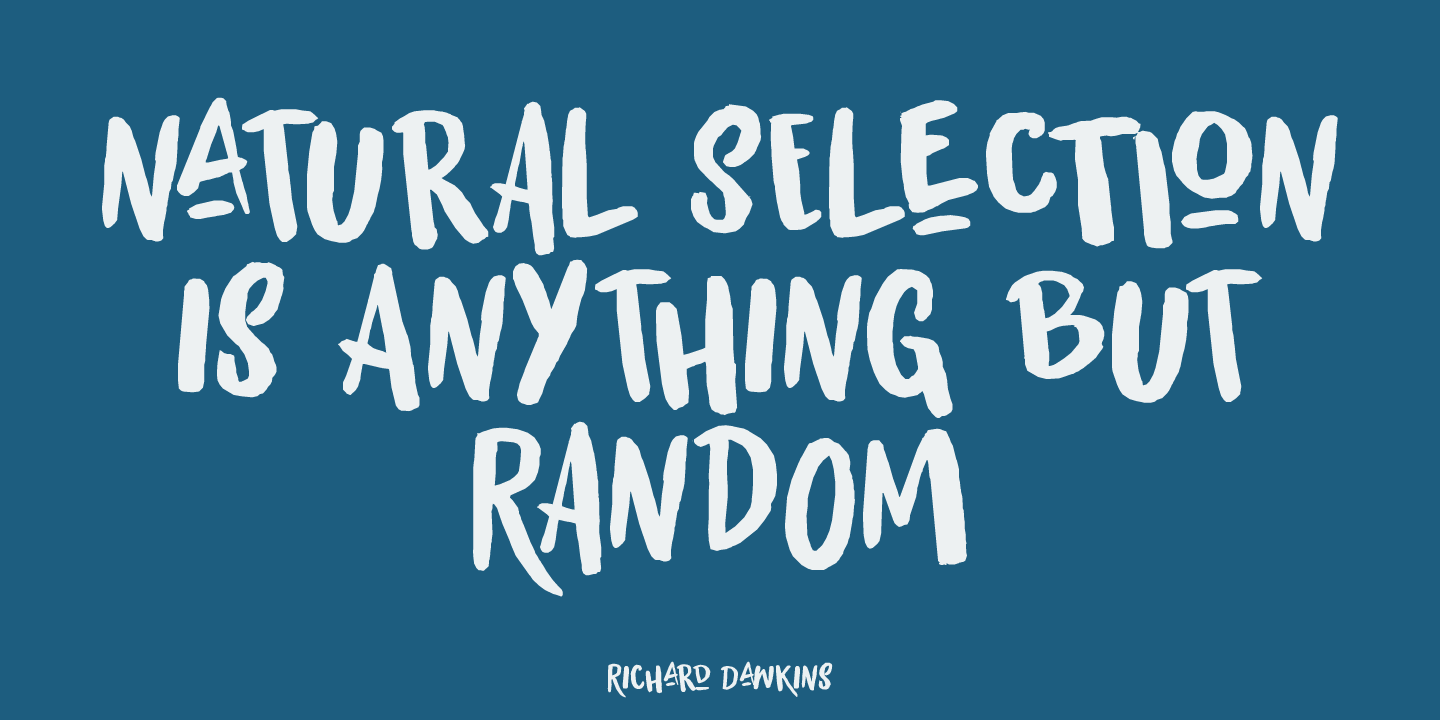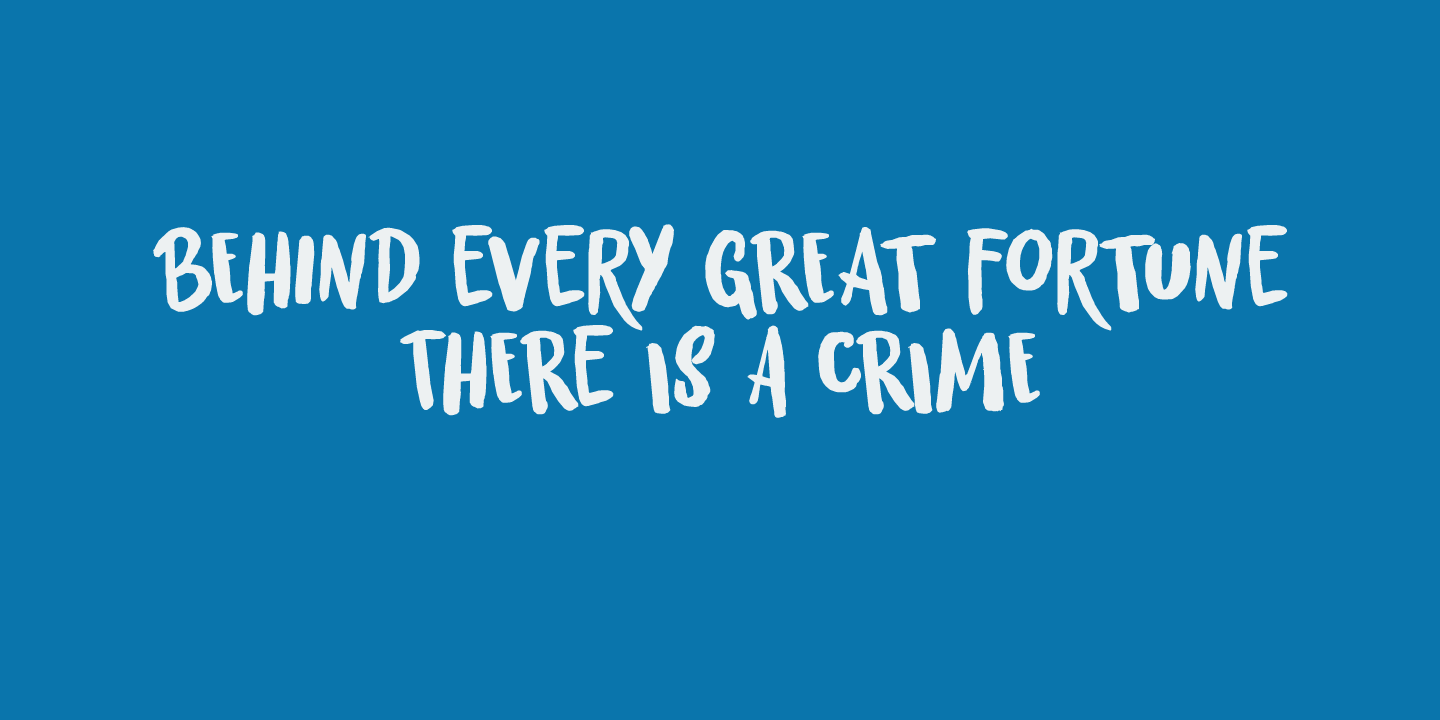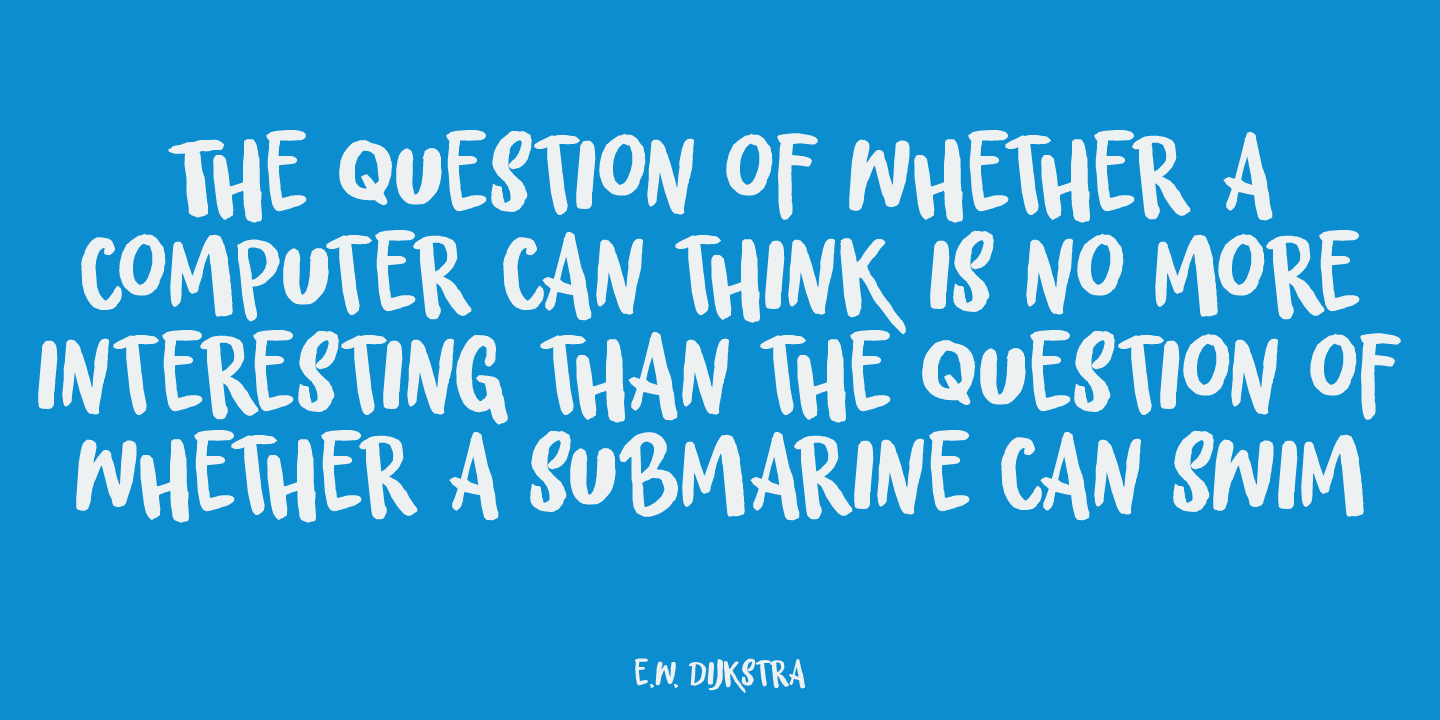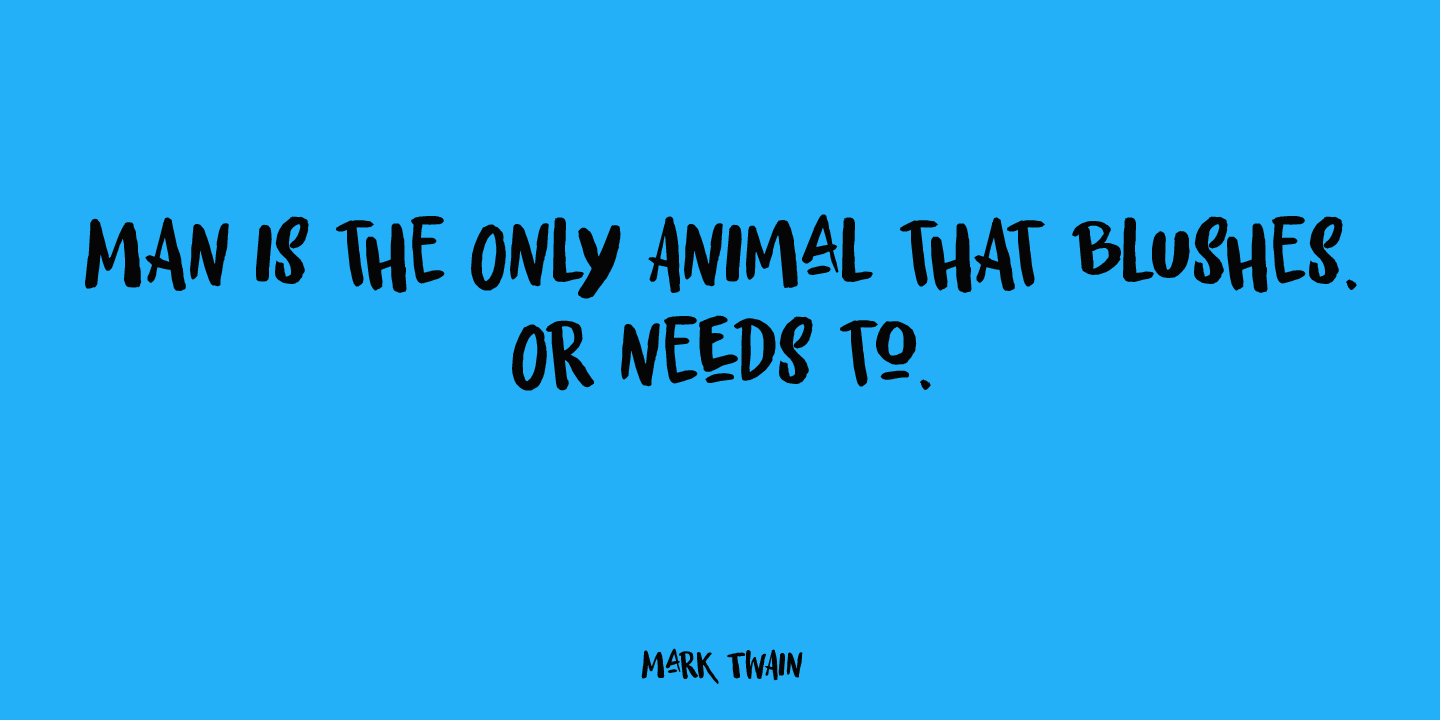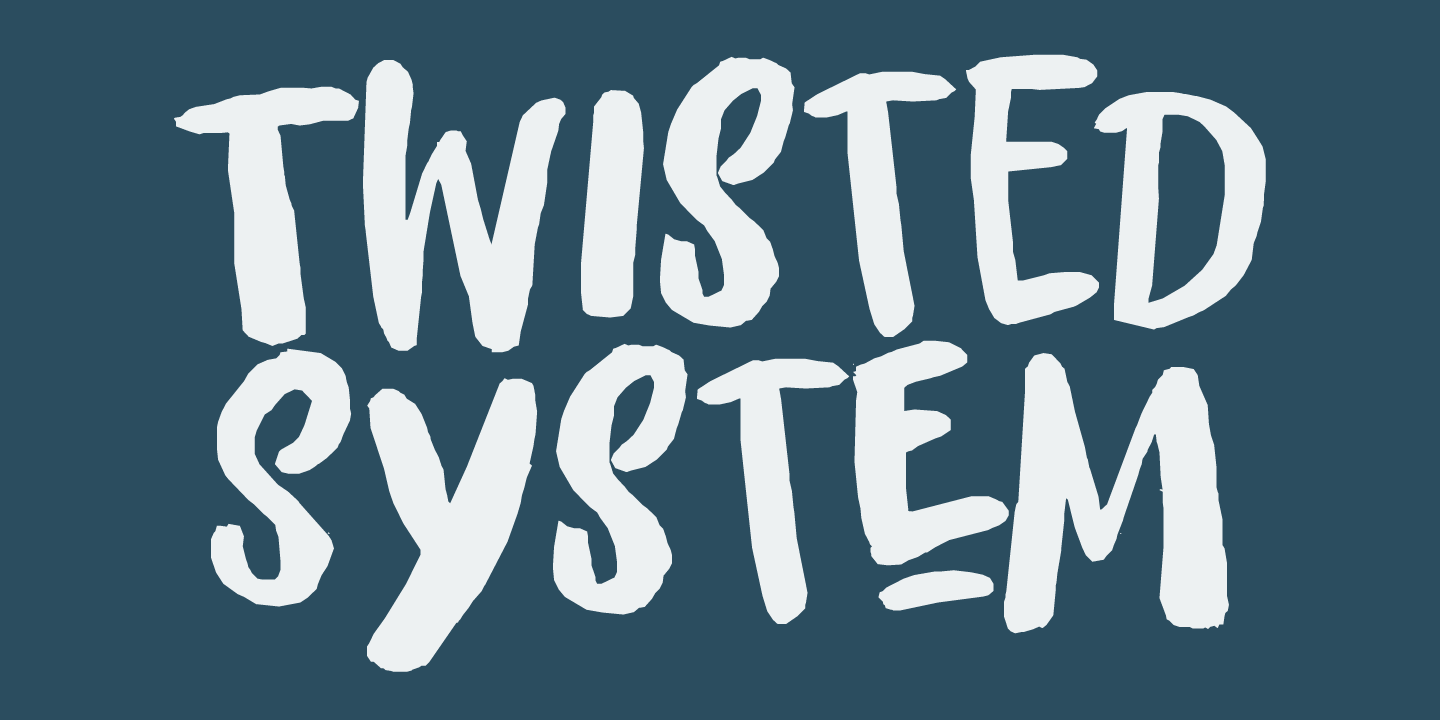
Twisted System
About Twisted System
Twisted System is a nice little China Ink font. It is a bit random, loose, uneven and shaky, but comes with a lot of character and some interesting alternates as well.